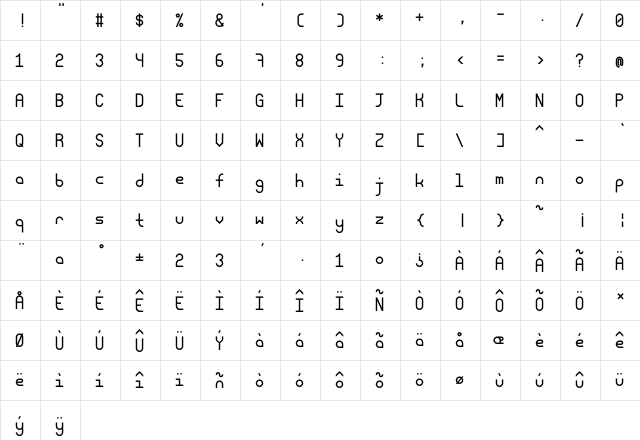
Modum Regular Font Preview
Modum Regular
Design Context for Modum Typeface
Modum offers clean, dependable letterforms without strong stylistic allegiance, making it a practical choice for designers who need flexibility.
Pro Tip: Use Modum in both headline and body roles to test its range before committing to a single application.